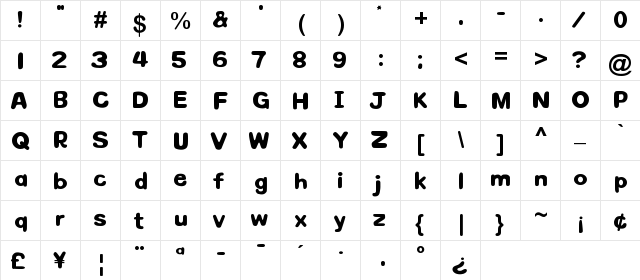
Tickle Toes Infanity Regular
Design Context for Tickle Toes Infanity Typeface
Tickle Toes Infanity is a composed and adaptable typeface that performs quietly and consistently across a wide range of design contexts.
Pro Tip: Use Tickle Toes Infanity in both headline and body roles to test its range before committing to a single application.